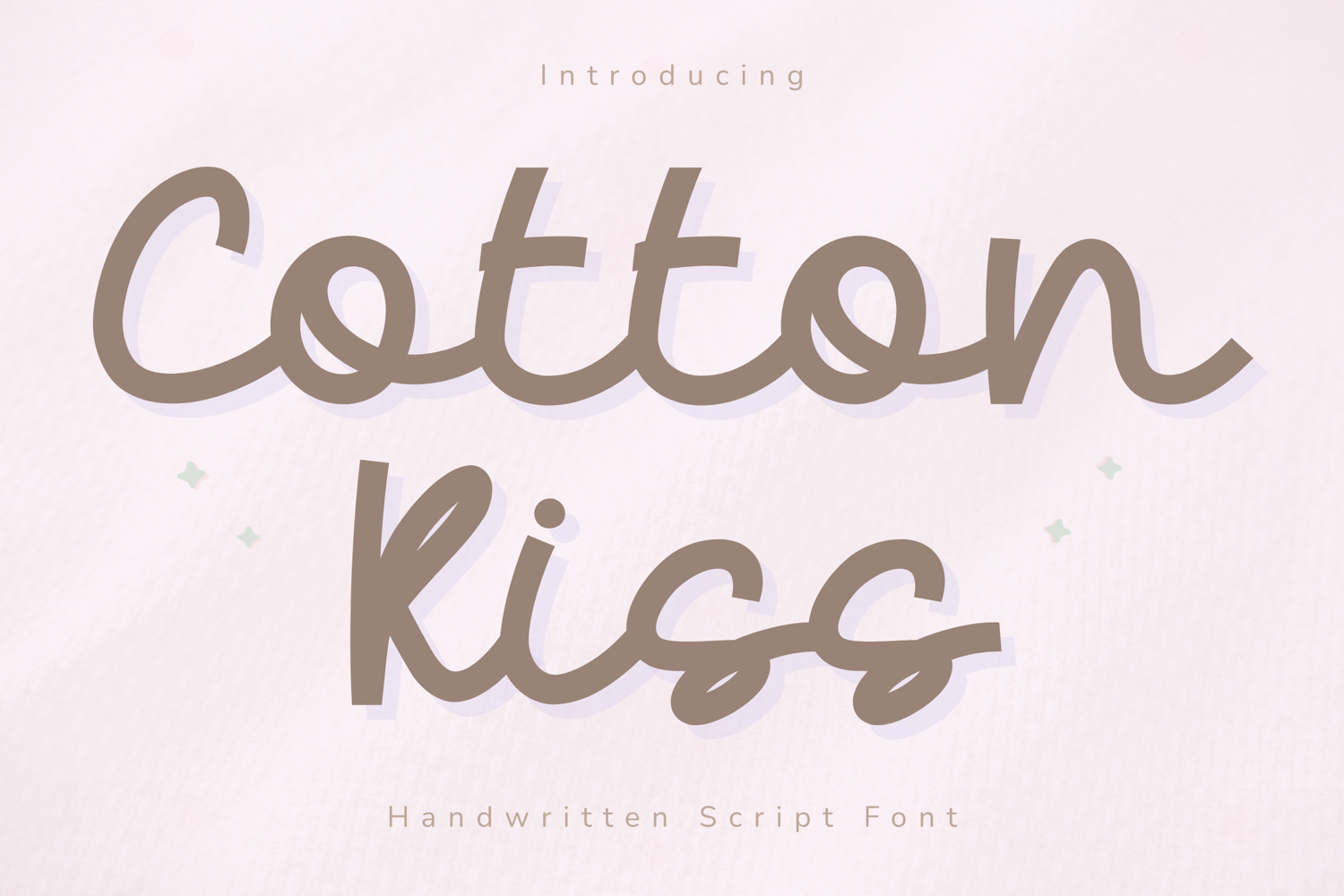
Cotton Kiss - Soft Handwritten Script Font
Cotton Kiss – Soft Handwritten Script Font
Cotton Kiss is a soft and delicate handwritten script font designed to bring a warm, cozy, and gentle feeling to your designs. With its smooth curves and airy strokes, this font creates a natural and effortless look that feels both modern and comforting.
Perfect for feminine branding, lifestyle content, and aesthetic designs, Cotton Kiss adds a subtle charm that is elegant without being overpowering.
Key Features:
Uppercase & lowercase letters
Smooth and soft handwritten style
Natural flowing script
Numbers, punctuation & symbols
Perfect For:
Feminine branding & logos
Instagram & social media posts
Digital planners & journaling
Wedding & invitation designs
Stickers & packaging
Cricut & craft projects
Cotton Kiss is designed to give a soft, cozy, and minimal aesthetic, making it perfect for designs that need a calm and beautiful handwritten touch.